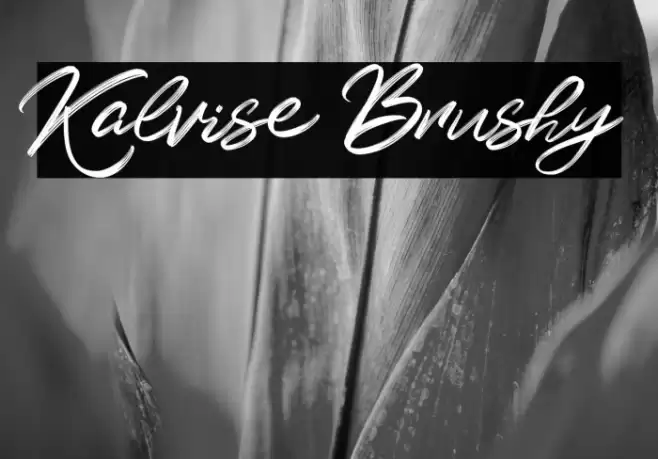
Kalvise Brushy Font
Kalvise Brushy Description
This font exudes a dynamic and energetic feel with its brush-like strokes and fluid, cursive style. The letters are crafted with a sense of movement, giving an impression of being hand-painted with a brush. The uppercase letters are bold and expressive, while the lowercase letters maintain a consistent flow, enhancing the overall aesthetic. The strokes vary in thickness, adding a sense of depth and texture. This font is perfect for projects that require a personal and artistic touch, such as invitations, posters, or branding materials that aim to convey creativity and individuality.
A dynamic, brush-style cursive font with expressive strokes from Uncategorized fonts.
- Proposed Projects: Ideal for artistic projects, invitations, posters, and branding materials.
- Use Case: Logos, Headlines, Artistic projects